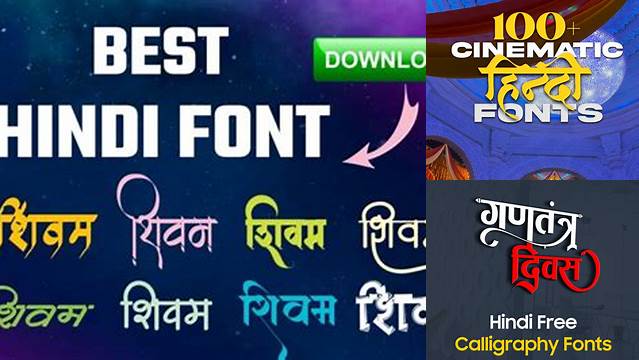
Free Hindi Fonts: Best Downloads For PixelLab
Hey guys! Are you looking to add some desi flair to your PixelLab projects? Well, you've come to the right place! In this article, we're diving deep into the world of best Hindi fonts free download for PixelLab. We know how crucial typography is in graphic design, especially when you're aiming for that perfect aesthetic. Whether you're creating posters, social media graphics, or any other visual content, the right font can make all the difference. So, let's get started and explore some fantastic options that will make your Hindi text pop!
Choosing the right font is like picking the perfect outfit for an occasion. It sets the tone, conveys the message, and captures the audience's attention. For Hindi typography, this is even more critical because the script itself is so beautiful and expressive. A well-chosen font can enhance the readability and visual appeal of your text, making your designs stand out. PixelLab is a fantastic tool for mobile graphic design, and having a collection of high-quality Hindi fonts at your disposal can significantly boost your creative potential. We’re talking about fonts that not only look great but also render well on different devices and screen sizes. After all, you want your designs to look amazing no matter where they’re viewed. Now, let's talk about the criteria we'll use to evaluate these fonts. We're not just looking for pretty letters; we're considering factors like readability, versatility, and availability for free download. A great font should be legible in various sizes, work well in different design contexts, and, of course, be accessible without costing you a dime. So, whether you're a seasoned designer or just starting, this guide will help you find the perfect Hindi fonts to elevate your PixelLab creations. Buckle up, because we're about to embark on a typographic adventure!
Why Use Hindi Fonts in PixelLab?
Let’s talk about why using Hindi fonts in PixelLab is such a game-changer. First off, if you're creating content for a Hindi-speaking audience, using Hindi fonts is a no-brainer. It’s about connecting with your audience in their language and making your message resonate on a deeper level. Imagine seeing a beautifully designed poster with text that speaks directly to you – that’s the power of using the right font. But it's not just about language; it's also about culture and identity. Hindi fonts carry a certain cultural weight, adding an authentic and traditional touch to your designs. This can be particularly important if you're creating content for festivals, cultural events, or anything that celebrates Indian heritage. Using the right font can evoke a sense of nostalgia, pride, and connection, making your designs more impactful and memorable. Plus, let's be honest, Hindi is a gorgeous language, and its script is equally stunning. There's a certain elegance and fluidity to Devanagari, the script used for Hindi, that can add a touch of sophistication to your designs. A well-chosen font can highlight the beauty of the script, making your text look visually appealing and artistic. Now, think about the versatility that Hindi fonts bring to your designs. You can use them for a wide range of projects, from creating eye-catching social media posts to designing professional-looking posters and banners. Whether you're going for a modern, minimalist look or a more traditional, ornate style, there's a Hindi font out there that will fit the bill. And PixelLab, with its user-friendly interface and powerful features, makes it super easy to experiment with different fonts and see what works best for your project. So, if you're looking to add some personality, cultural flair, and visual appeal to your designs, incorporating Hindi fonts in PixelLab is the way to go. It’s about making your message heard, seen, and felt.
Top Free Hindi Fonts for PixelLab
Alright, let's dive into the good stuff – the top free Hindi fonts for PixelLab! We've scoured the internet to bring you a curated list of fonts that are not only visually appealing but also perfect for your design needs. These fonts are handpicked for their readability, versatility, and, of course, their availability for free. So, without further ado, let's get started!
Krutidev: This is a classic and widely used font, especially in government and official documents. Krutidev is known for its clean and simple design, making it highly readable. It’s a staple for any designer working with Hindi text. If you need something that looks professional and straightforward, Krutidev is your go-to font. Its simplicity ensures that your message is conveyed clearly, without any distractions. Plus, because it's so widely used, it’s compatible with most systems and software.
Devlys: Another popular choice, Devlys, offers a slightly more stylized look compared to Krutidev. It's still highly readable but has a touch of elegance that can make your designs stand out. Devlys is a great option if you want a font that's both professional and visually appealing. It’s versatile enough to be used in a variety of design contexts, from formal documents to creative posters. The subtle flourishes in Devlys add a touch of personality without compromising readability.
Arial Unicode MS: While technically a Unicode font, Arial Unicode MS supports Hindi characters and is a great option if you want a clean, modern look. It's part of the Arial family, which is known for its legibility and versatility. This font is a solid choice if you're aiming for a contemporary feel in your designs. Its clean lines and balanced letterforms make it easy to read, even in smaller sizes. Plus, being a Unicode font, it ensures compatibility across different platforms and devices.
Chanakya: If you're looking for a font with a traditional Indian feel, Chanakya is an excellent choice. It has a distinct calligraphic style that adds a touch of authenticity to your designs. Chanakya is perfect for projects that celebrate Indian culture, history, or traditions. Its intricate letterforms evoke a sense of heritage and craftsmanship. Using Chanakya can instantly give your designs a unique and culturally rich look.
Lohit Devanagari: This font is part of the Lohit family, which is designed to be highly readable on screen. Lohit Devanagari is a great option for digital designs, ensuring that your text looks crisp and clear. It’s particularly well-suited for websites, apps, and social media graphics. The font’s design prioritizes legibility, making it easy for your audience to read your message, even on smaller screens. Lohit Devanagari strikes a balance between functionality and aesthetics, making it a reliable choice for any digital project.
These free Hindi fonts are just the tip of the iceberg, but they offer a fantastic starting point for your PixelLab projects. Each font has its own unique character and style, so experiment and see which ones resonate with your design vision. Remember, the right font can transform your designs from ordinary to extraordinary!